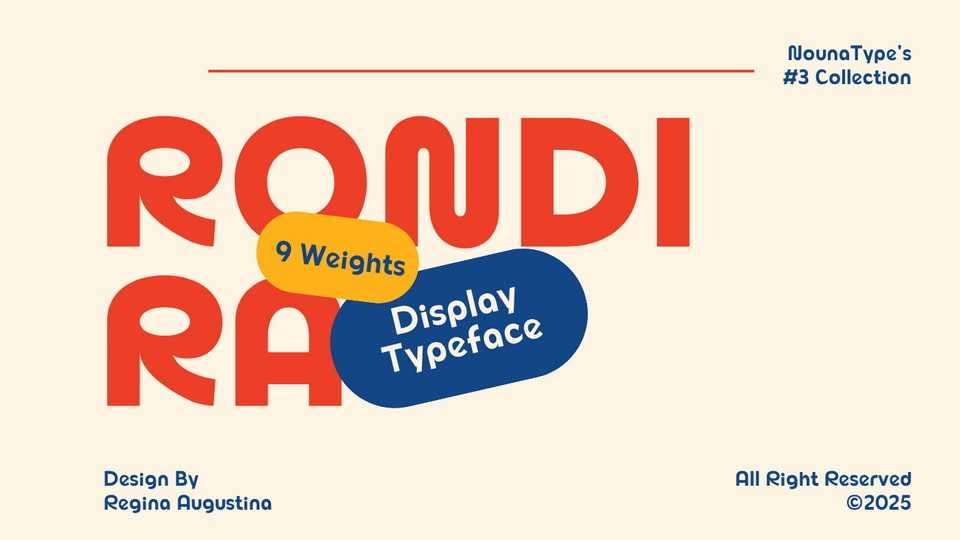
Download Rondira font, created to bring joy, character, and bold style to your designs. It’s versatile, playful, and ready for anything from posters to digital graphics.